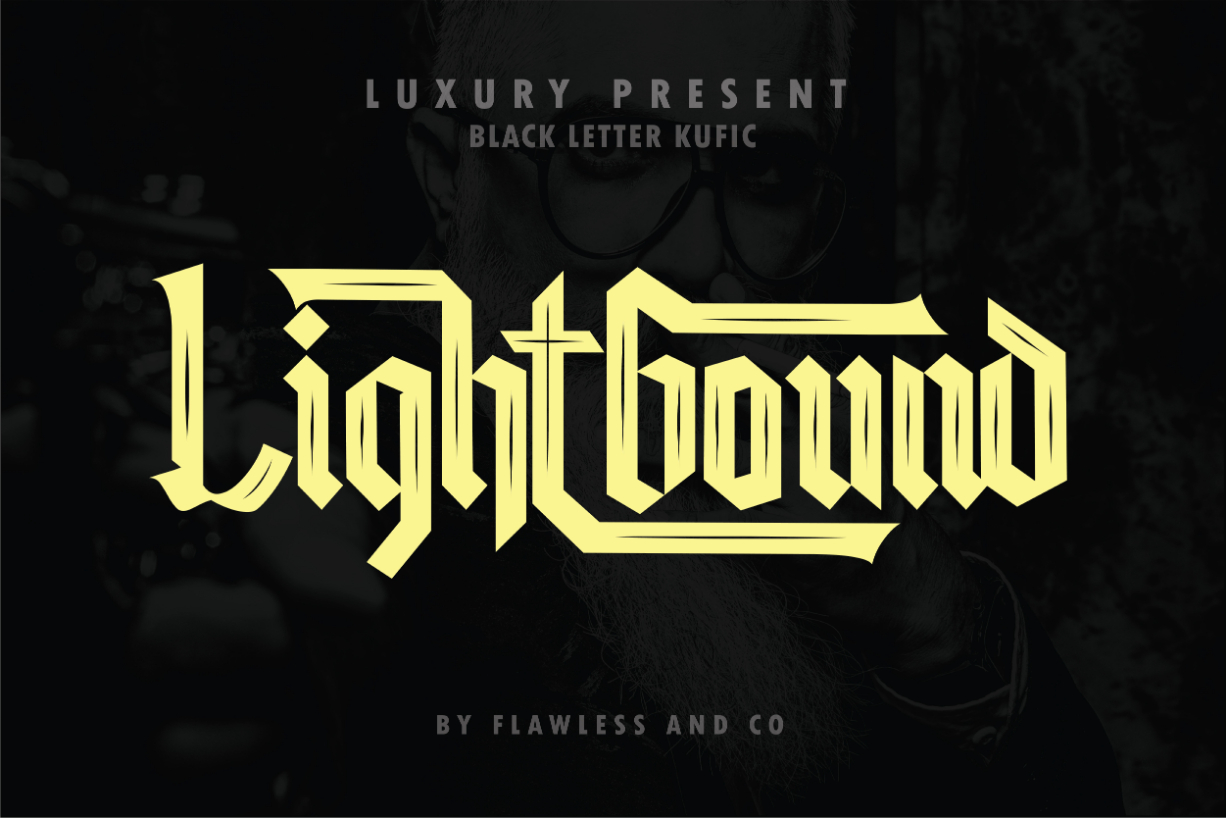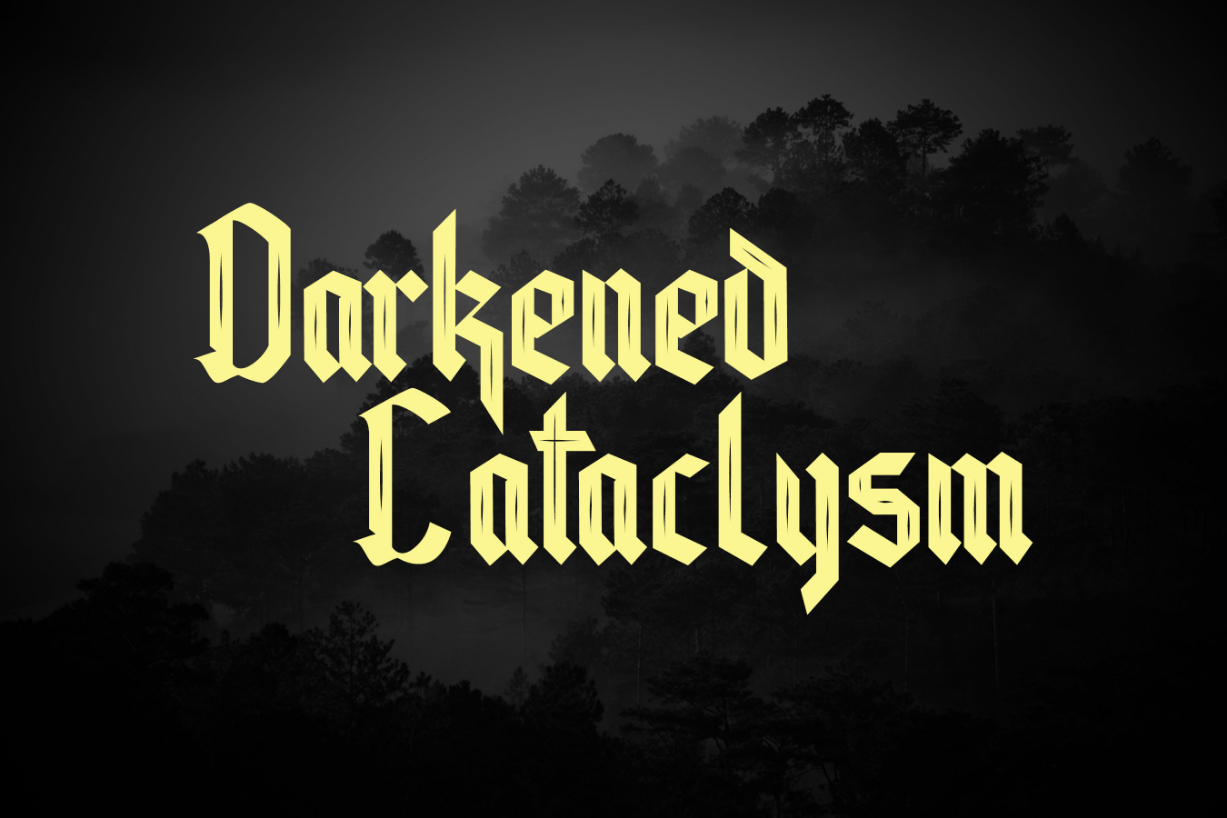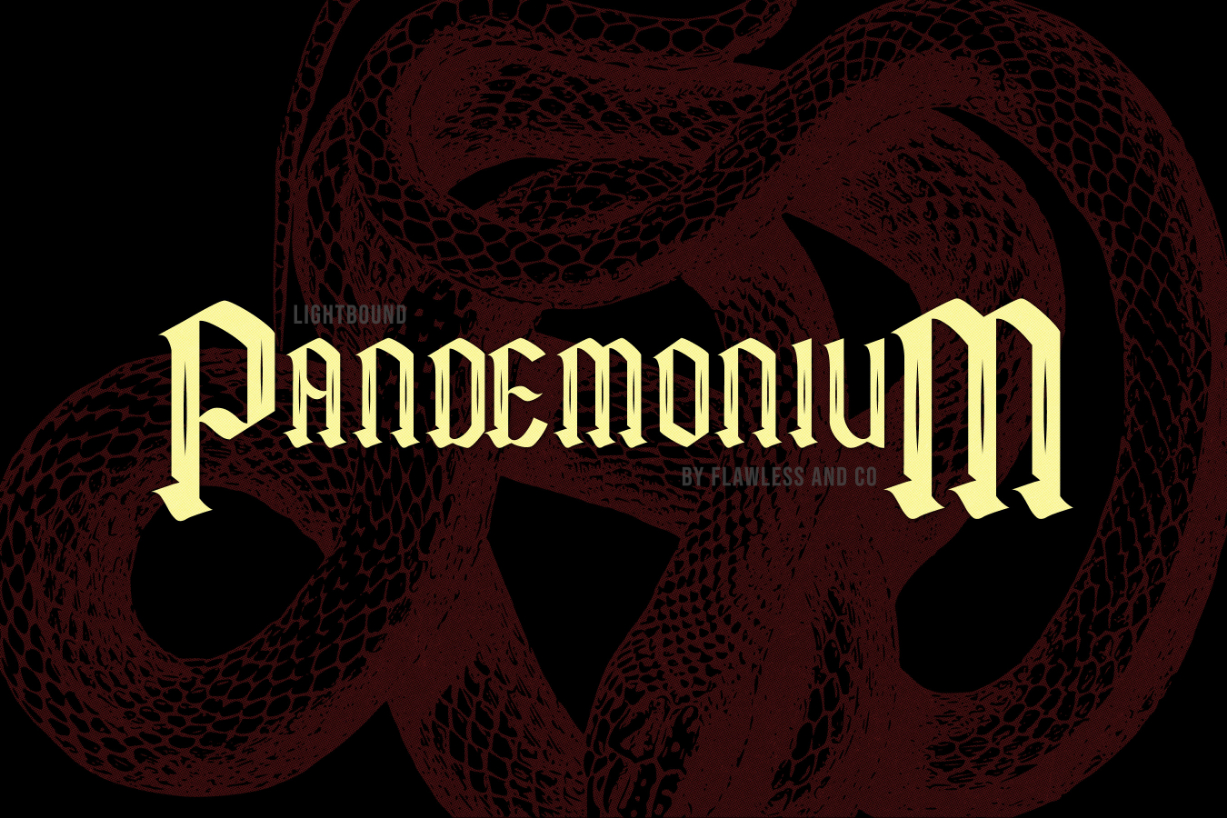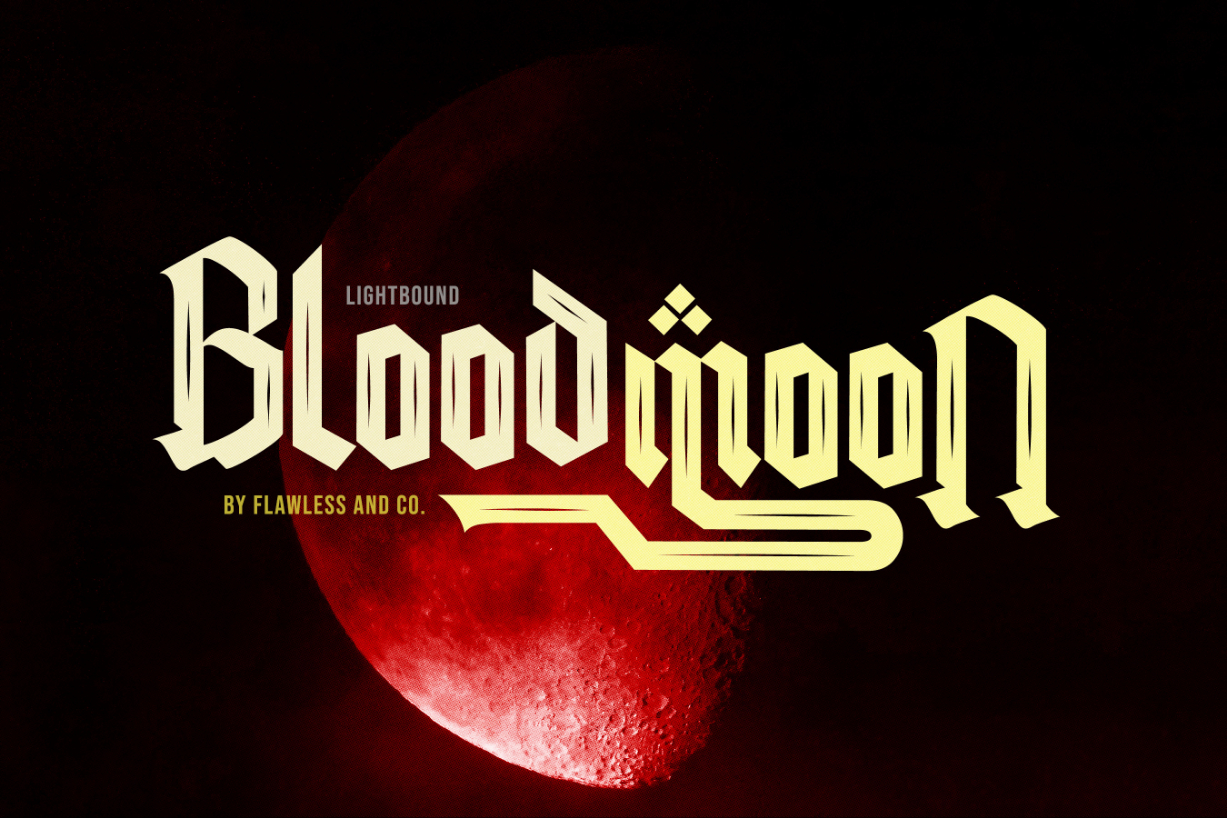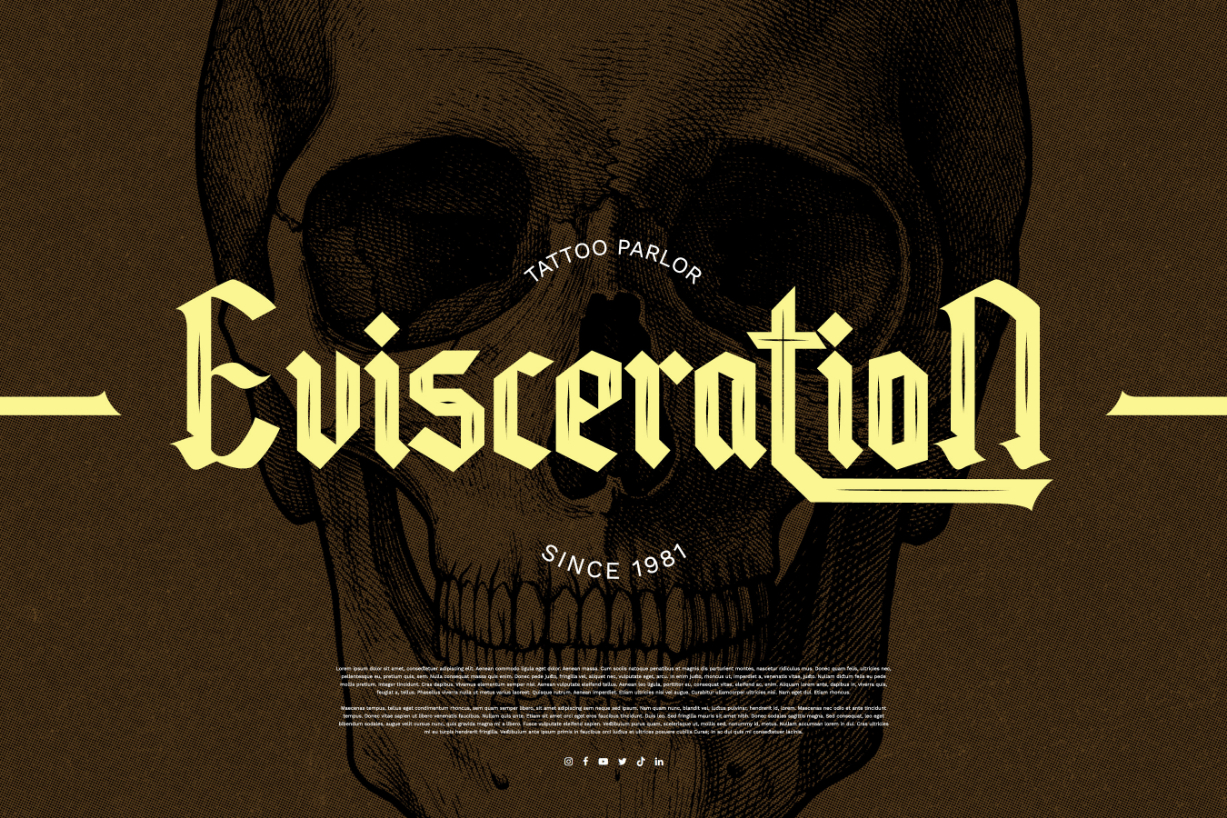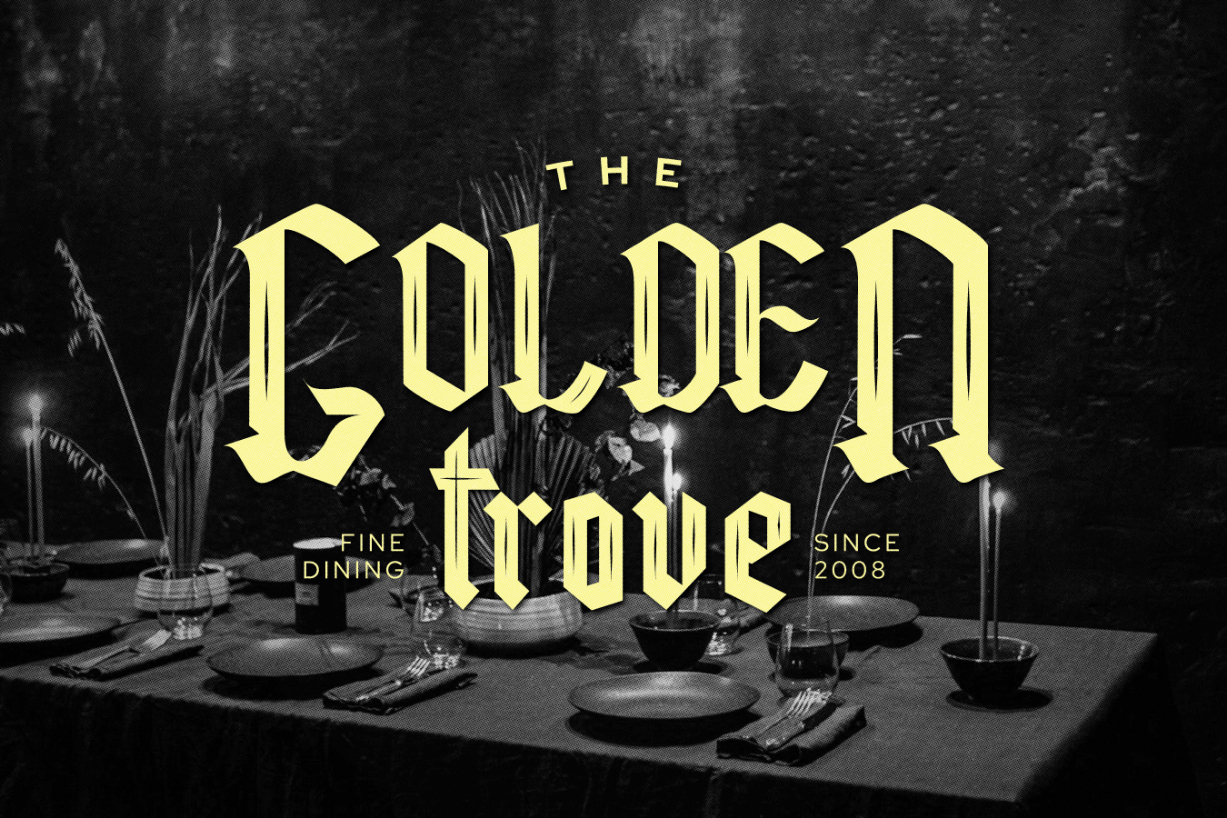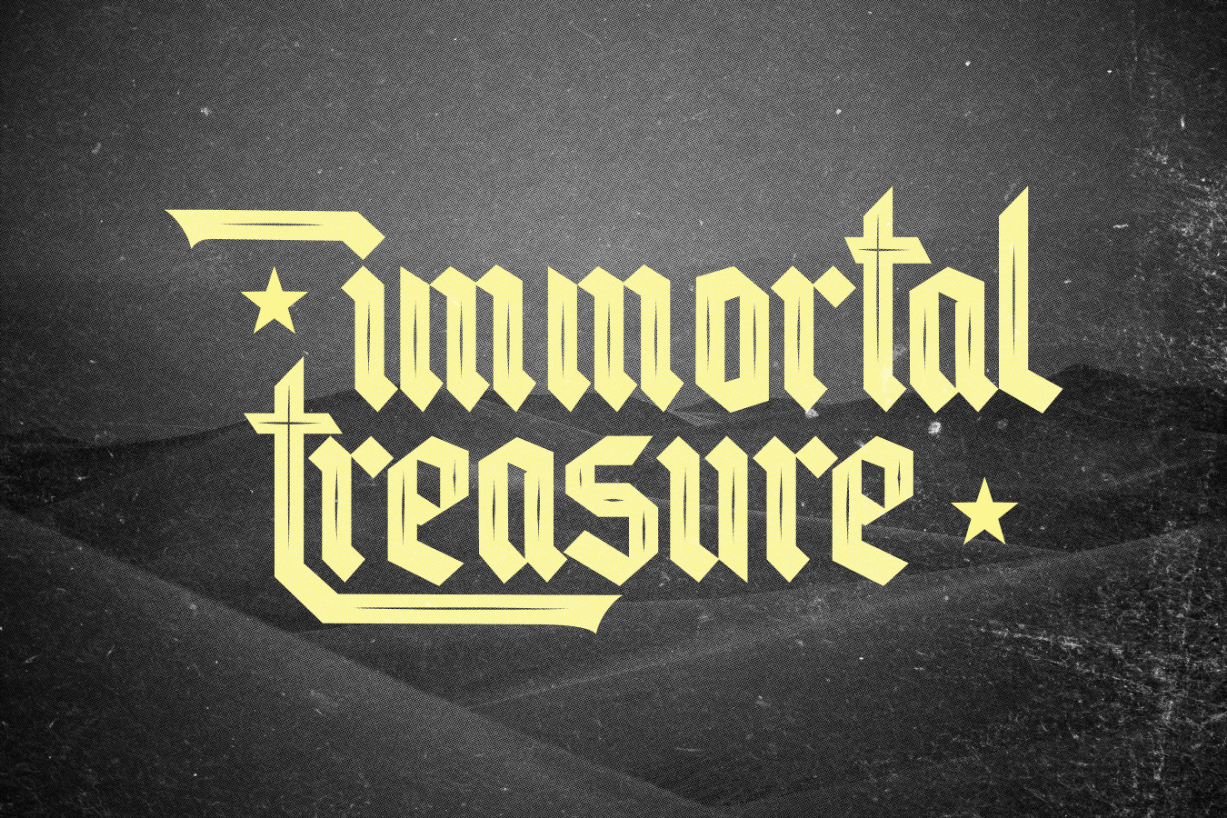
Lightbound Font
About Lightbound Font
Lightbond is an exquisite blackletter typeface that fuses ancient calligraphic traditions with a contemporary twist. Its distinctive letterforms and interlocking patterns create a visually captivating effect, making it a perfect choice for projects that demand a touch of artistic flair.